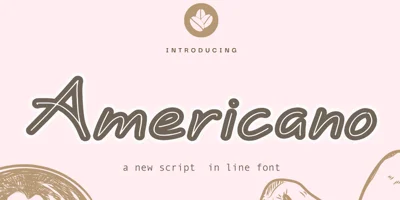
Americano Font
This elegant and stylish typeface is a perfect fit for café menus, boutique branding, lifestyle blogs, packaging design, Instagram quotes, wedding invitations, and any design that calls for a blend of charm and modern sophistication.
What makes Americano Font so exciting is its smooth and handcrafted aesthetic—like the perfect cup of artisan coffee. It’s both warm and contemporary, with carefully designed curves that exude character. This font has the kind of personality that instantly elevates your design with a cozy yet polished vibe.
The Americano Font family includes multiple weights and styles such as Regular, Light, Bold, and Italic. These variants give designers the flexibility to use the font across headers, body text, and callouts while maintaining a cohesive visual language. Whether you're going minimal or full-on vintage-chic, the Americano Font family adapts like a pro.
If you’re looking for a typeface that feels both trendy and timeless, Americano Font is a great way to try before you buy. From latte-loving creatives to branding gurus, this font adds a tasteful punch of personality to any project.